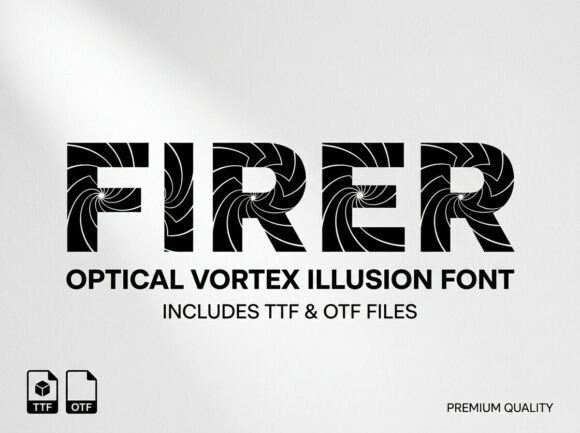
Firer: A Display Typeface That Makes Every Letter Count
When you need a headline that stops the scroll, a logo that demands a second look, or packaging that leaps off the shelf, the right typeface does more than just present words—it creates an immediate emotional response. Firer is that kind of typeface. It’s a premium display font built for moments where ordinary just won’t do. With its unique artistic details and bold, confident strokes, Firer isn’t trying to blend in. It’s designed to be the centerpiece, the element that draws the eye and holds it, giving your project a distinctive, memorable voice from the very first glance.
Think of Firer as a specialist tool in your design toolkit. It’s not the workhorse for body text; it’s the headline act. Its visual personality is strong, artistic, and unapologetically expressive. Each letterform feels crafted, with decorative elements that give it a modern, artistic flair without sacrificing clarity or professionalism. This is a typeface that understands its role: to add visual impact, personality, and a touch of creative sophistication. Whether you’re working on a branding project, a marketing campaign, or a personal creative endeavor, Firer provides that high-impact foundation that can elevate the entire composition.
Where Firer Truly Shines: Practical Applications
The real value of a creative font like Firer is measured in its utility. Where does it fit best? Its strength lies in applications where large-scale text is the star. This makes it an excellent choice for bold headlines in editorial design or on web pages where you need to establish a strong visual hierarchy immediately. For logo design, Firer offers a unique starting point—its distinctive character can help a brand stand out in a crowded market, especially for businesses in creative, lifestyle, or artisan spaces. Imagine it on a craft brewery label, a boutique clothing tag, or the masthead of a contemporary magazine.
Its applications extend powerfully into packaging design. A product name set in Firer can communicate quality and creativity at a glance, which is crucial for shelf appeal. In the digital realm, it’s perfect for impactful social media graphics, hero banners, and title slides in presentations. For entrepreneurs and small business owners, using Firer for key branding materials—like business card logos, website headers, or promotional flyers—can inject a level of professional polish and artistic credibility that helps build a stronger brand identity. It’s a versatile asset for anyone who communicates visually, from bloggers and content creators to marketers and publishers.
Pairing and Practicality: Using Firer Effectively
A powerful display font like Firer achieves its best effect when paired thoughtfully. Because it’s so visually assertive, it needs a more neutral partner to handle supporting text. A clean, simple sans-serif font for body copy often creates a perfect balance, allowing Firer’s personality to shine without overwhelming the reader. Similarly, a classic, highly readable serif font can create an elegant contrast for editorial projects. The key is to let Firer handle the one or two most important typographic elements on the page, while its partner manages the detailed information.
Before you begin, it’s crucial to note that Firer is an all-caps typeface. This is a deliberate design choice that amplifies its high-impact, decorative nature. It’s built for headlines, logos, and initials where every letter acts as a standalone graphic element. This makes it less suitable for long sentences or paragraph text but perfect for short, powerful statements. When evaluating if it’s the right fit, test it with your specific project words. Does the letter combination look balanced and engaging? Does its artistic style align with the brand’s personality—whether that’s modern, edgy, artistic, or bold?